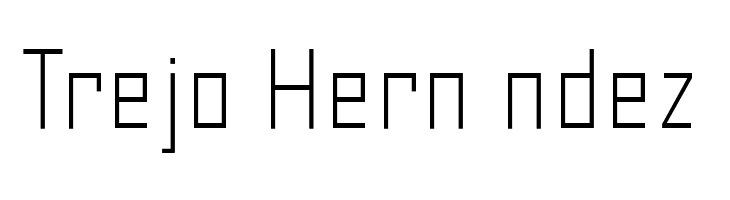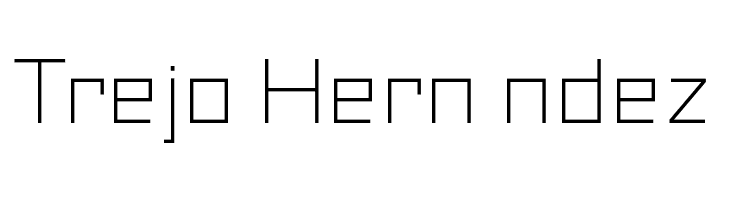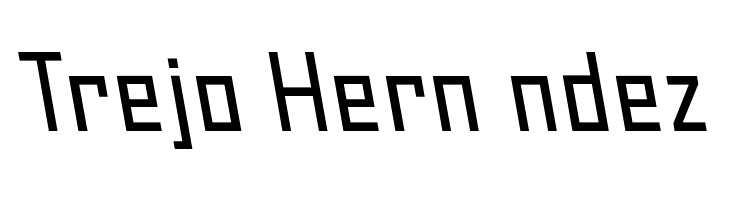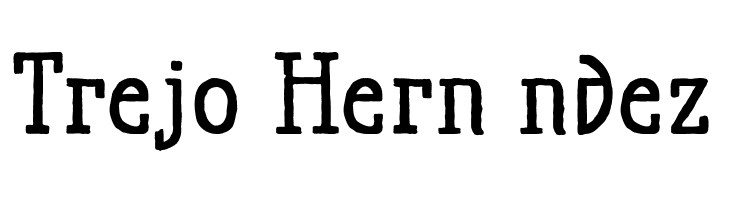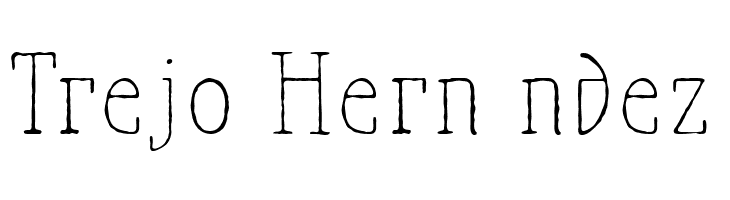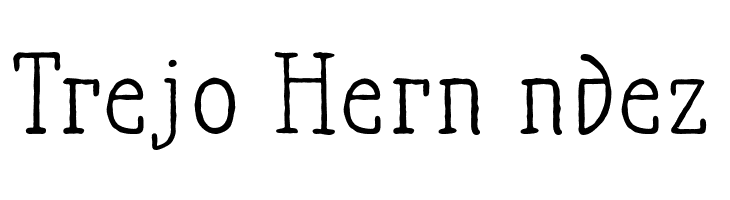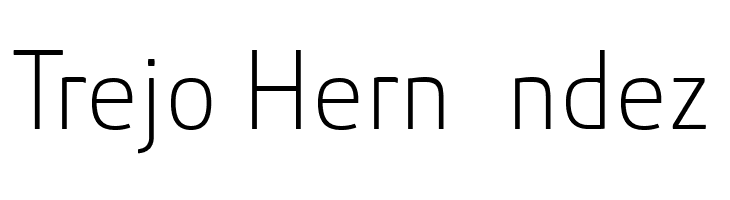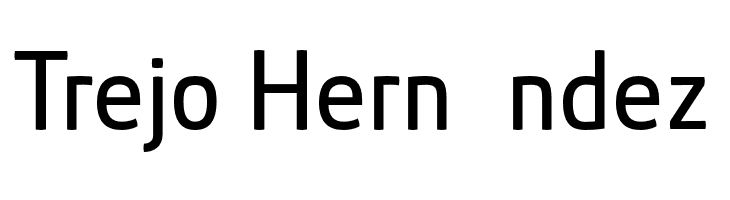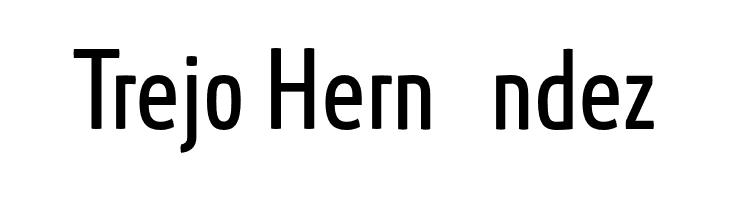
A geometric, minimalist font with thin lines and angular shapes, ideal for modern designs.
A geometric, angular font with a modern, slanted style.
A geometric, minimalist font with a modern and technical aesthetic.
A geometric, angular font with a modern slant and bold appearance.
A bold, handcrafted serif font with medium contrast and slightly condensed width.
A whimsical, hand-drawn font with a vintage feel and irregular strokes.
A hand-drawn, artistic font with unique and playful letterforms.
A modern, thin sans-serif font with clean lines and a minimalist aesthetic.
A modern, condensed font with clean lines and geometric shapes.